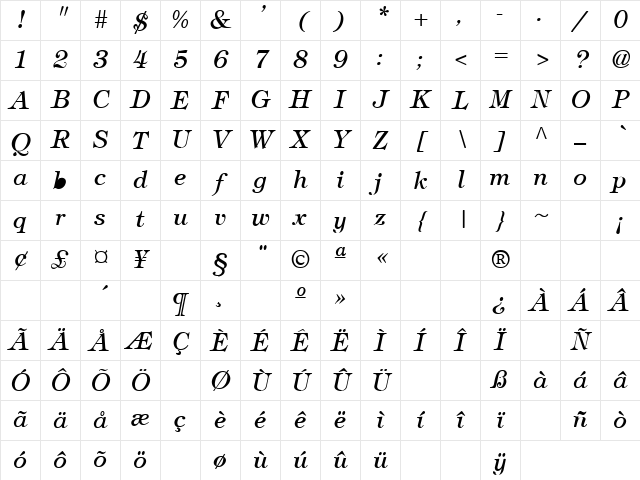
Stratton 5 Regular
Design Context for Stratton 5
Stratton 5 is a composed and adaptable typeface that performs quietly and consistently across a wide range of design contexts.